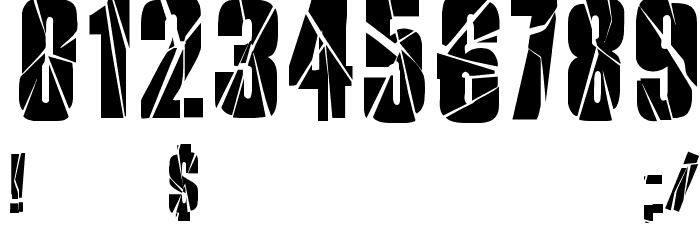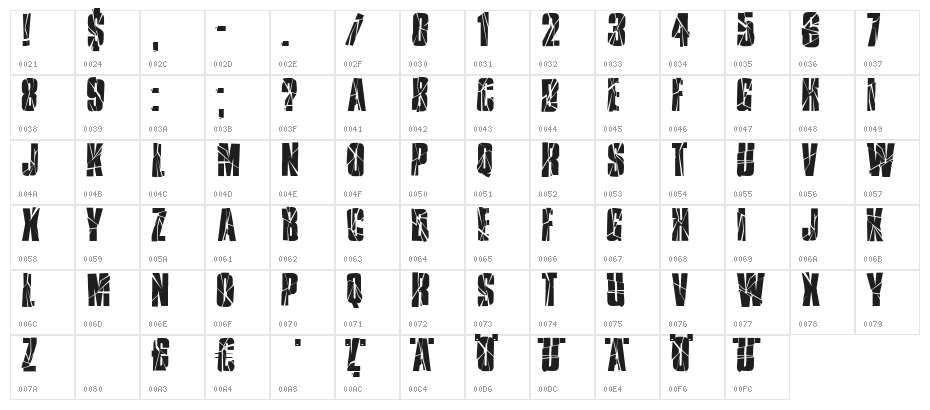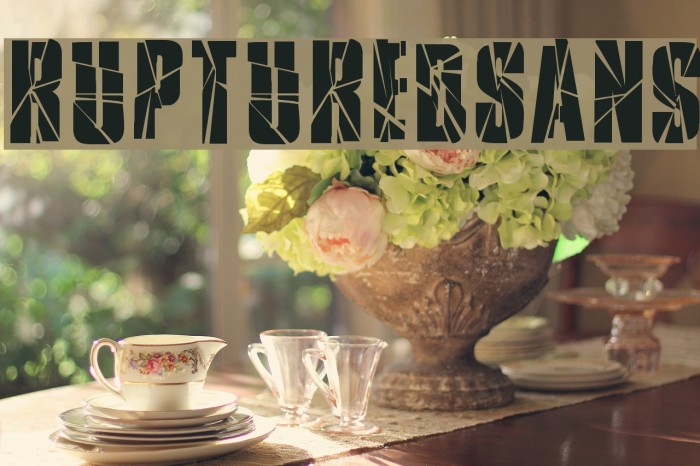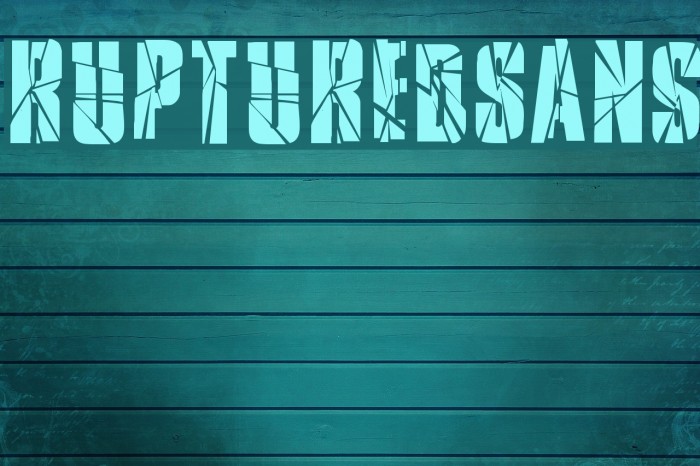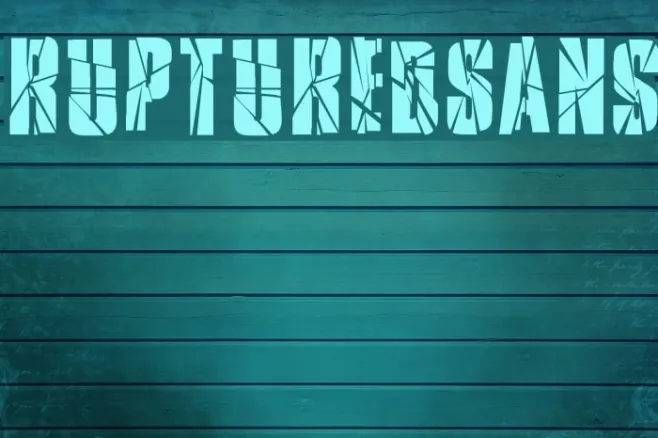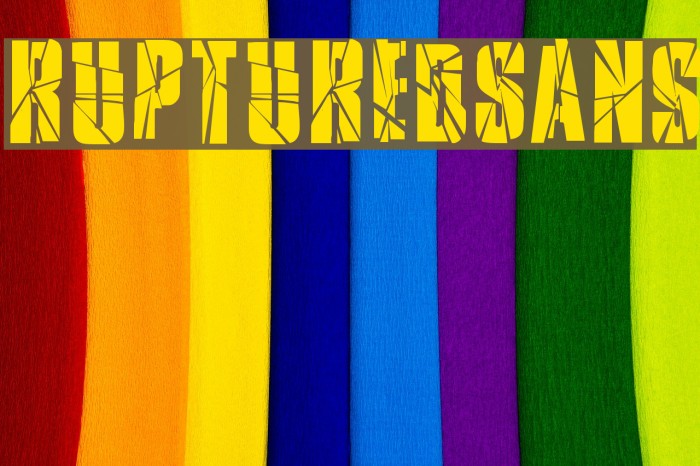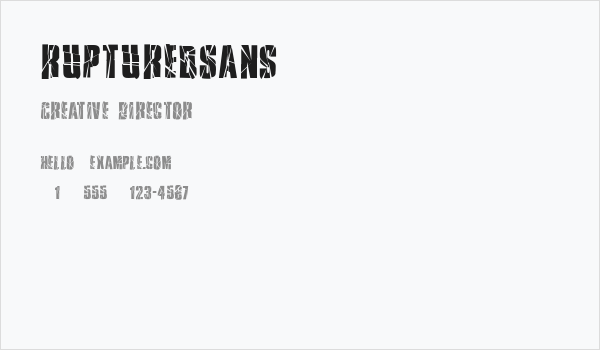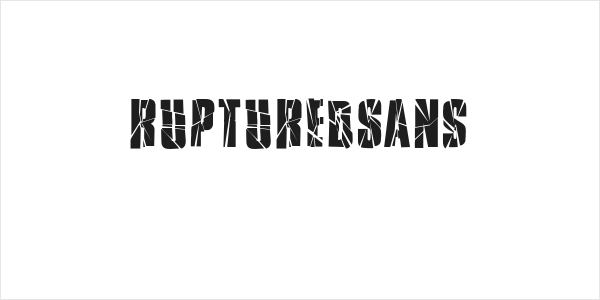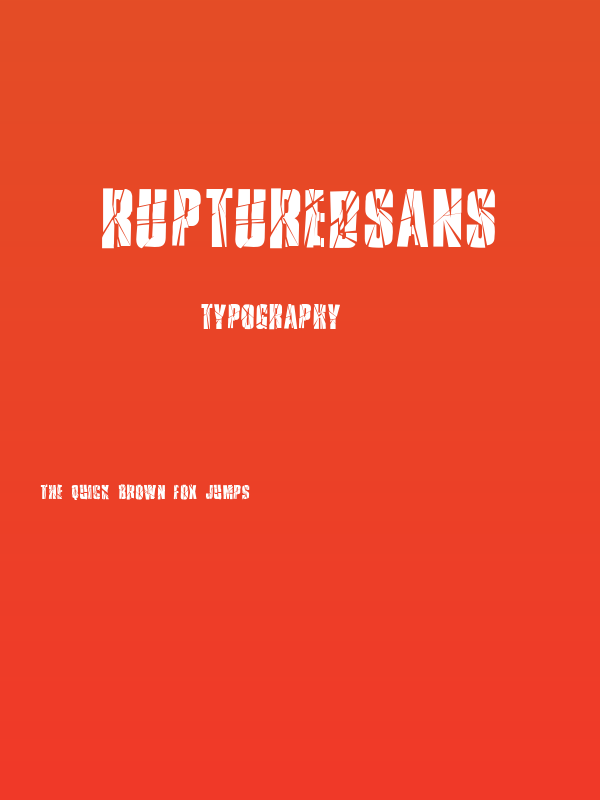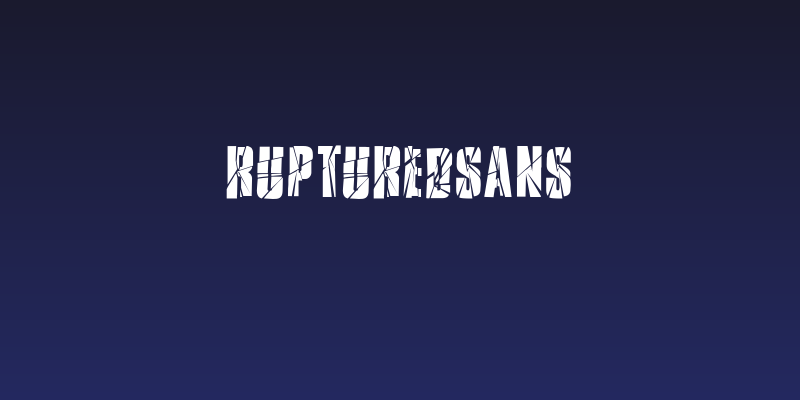
RupturedSans Font
RupturedSans Description
This font features a bold and striking design with a shattered, fragmented appearance. Each character is composed of sharp, angular shapes that give the impression of being broken or cracked. The boldness of the letters ensures high visibility, making it ideal for attention-grabbing headlines or impactful graphic designs. The uppercase and lowercase letters maintain a consistent style, enhancing the cohesive look of the text. Numbers and special characters follow the same fragmented aesthetic, ensuring uniformity across all elements. The unique design lends itself well to creative projects that require a modern and edgy feel.
| Proposed Projects | Ideal for posters, album covers, video game graphics, and edgy branding projects. |